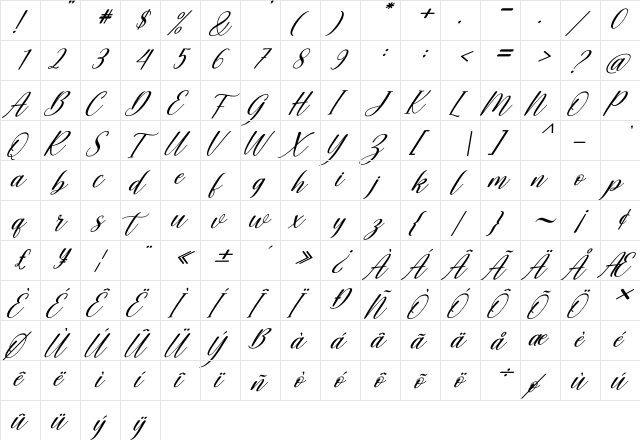
Bunny Honey Italic Regular
Design Context for Bunny Honey Italic Typeface
Bunny Honey Italic is a composed and adaptable typeface that performs quietly and consistently across a wide range of design contexts. The dynamic lean of this cut emphasises speed and emphasis in any layout.
Pro Tip: Use Bunny Honey Italic for emphasis, pull quotes, and subheadings where its slanted energy can add rhythm to the layout.